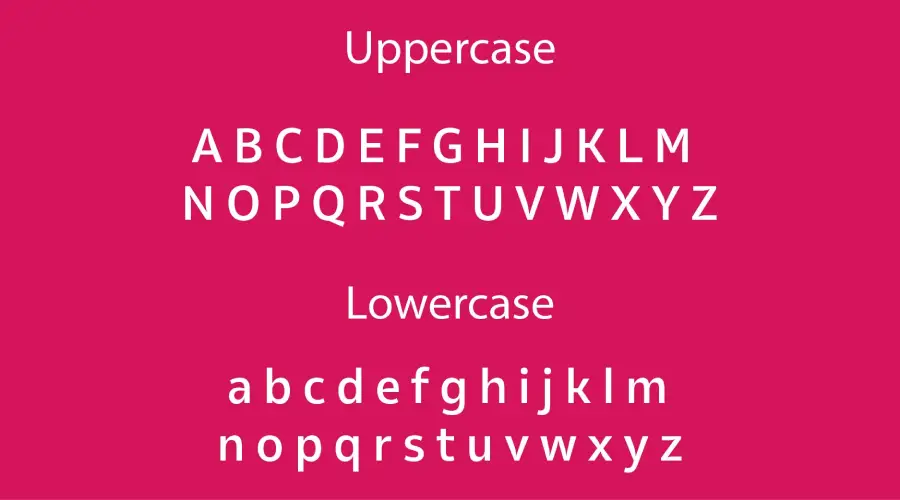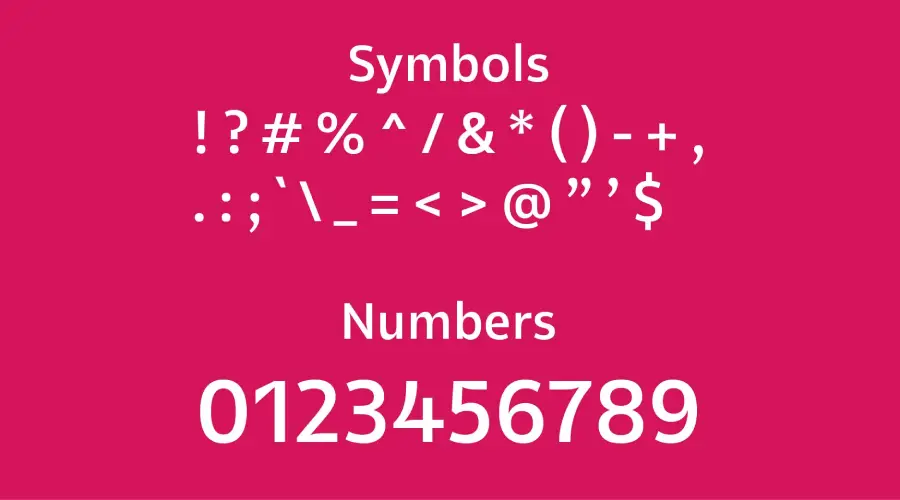
In the age of neutral typography, Pria Ravichandran gives a new taste to the humanist sans-serif, an art form that is known for its legibility. Then there’s Olivine font.
Olivine is a multi-faceted type family that is able to perform admirably across all sizes. It was designed with the greatest attention to ensure legibility across different sizes, angles, and distances. The solid shapes and exaggerated ink traps fade away to create a consistent typographic color and a vibrant texture when used in smaller font sizes. In larger settings, the design’s details take on a more self-conscious look and emphasize the stunning beauty of the style. Olivine is not affluent nor minimalist and strikes a delicate harmony between formality and comfort.
Olivine is natural and clean in the same way. It is comprised of seven weights in Roman and italics, The type family covers the typographic hierarchy for texts of all types and sizes. The distinct, neutral letterforms give personality to this type of family. The counter-forms are big and wide, providing the design with plenty of internal space, which is balanced by the wide spaces between characters. The features of Olivine allow readers to be enjoyable both digitally as well as in the printing medium. You won’t have to strain to read this family!
Font Usage
Olivine font is fashionable and appealing for designs and texts. It’s also suitable to be used in web-based series of every type. Logos, branding, invitations stationery, wedding theme corporate cards, logo T-shirts, covers, posts on social media networks and more can all benefit from this font. It is also a great tool to create stunning images and texts with a range of styles and colors.
It was primarily used for printing at the beginning of the development of this font. This font is still being used in print media to this day and is distinctive in appearance.
It is a sans-serif font family that contains 42 styles.